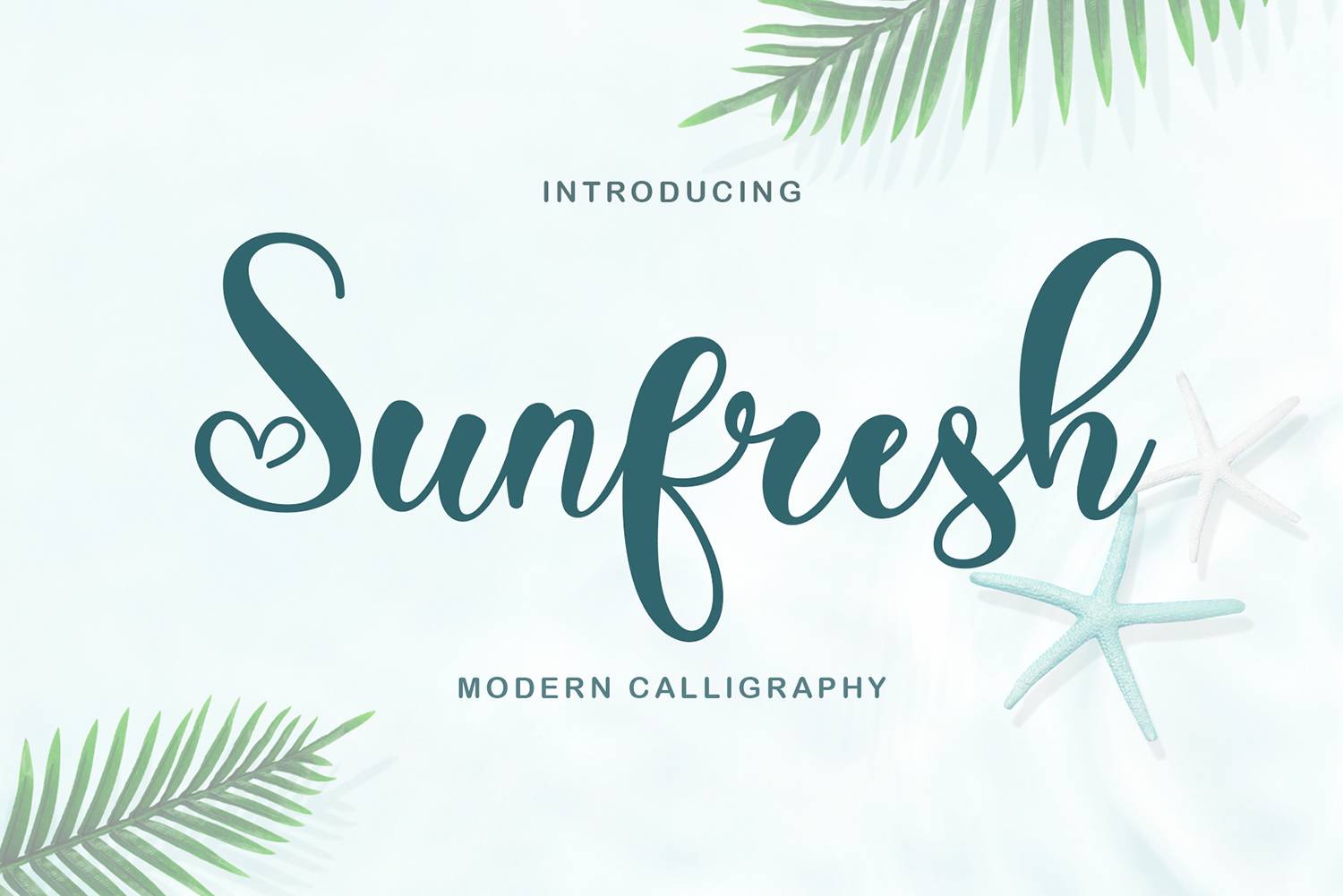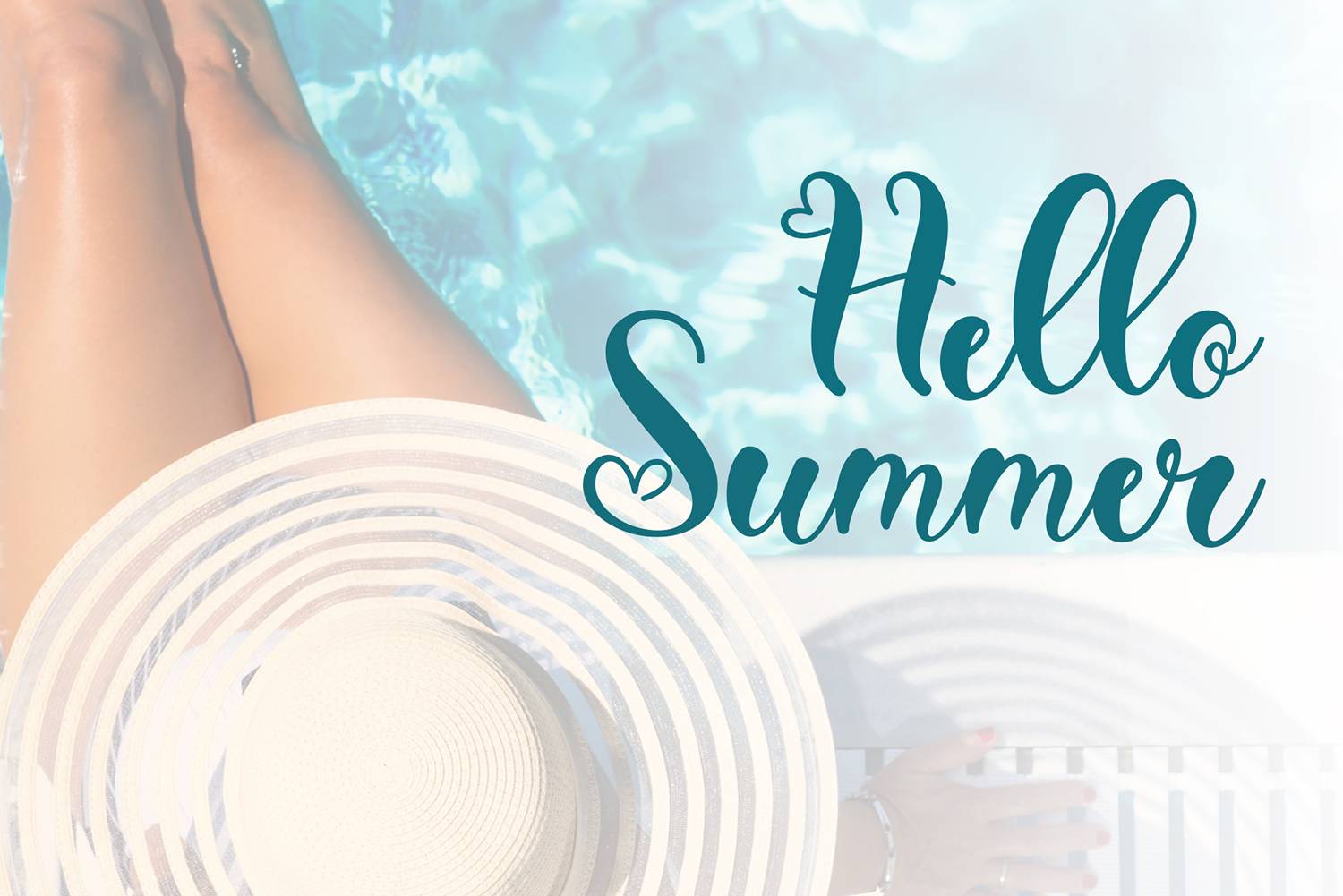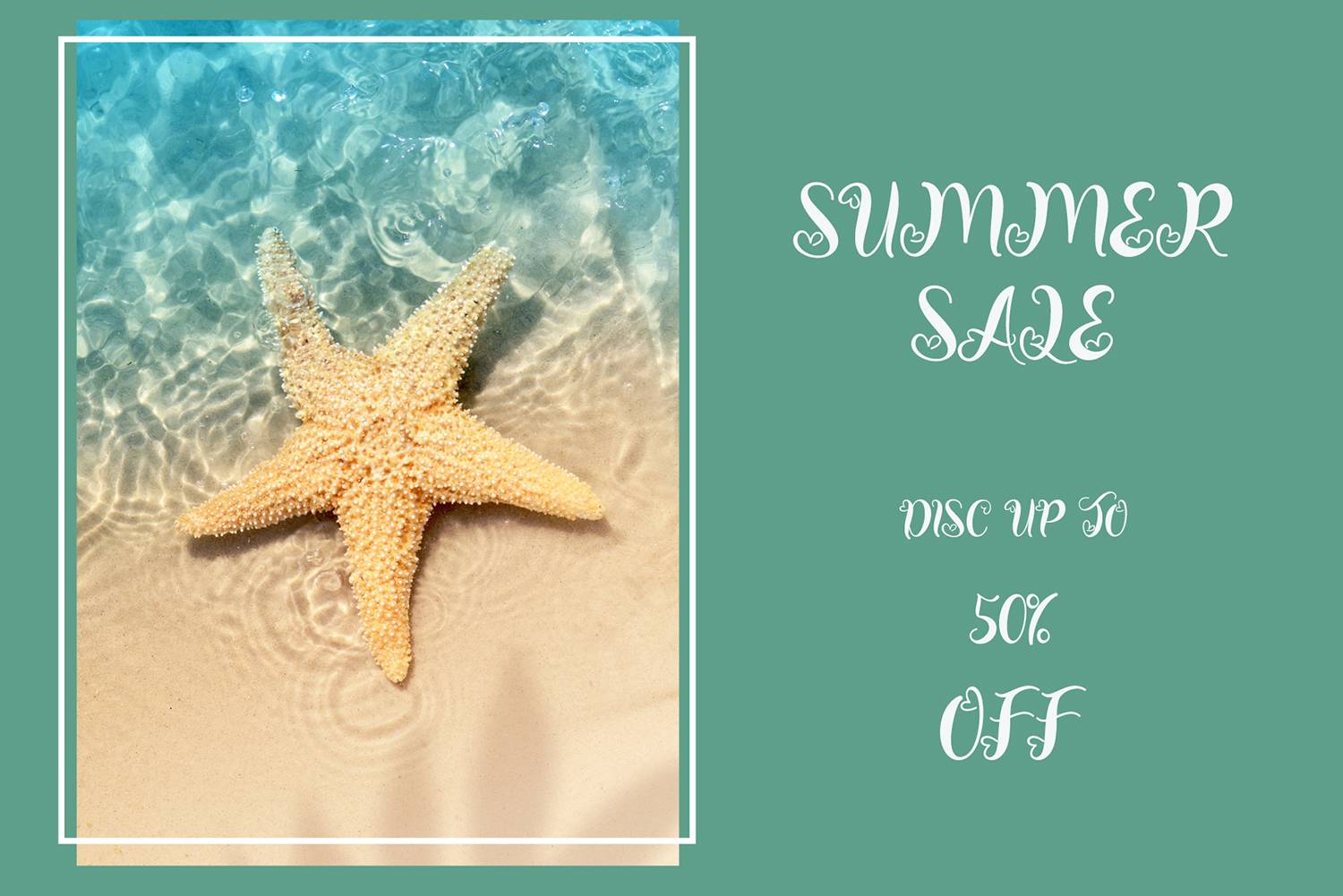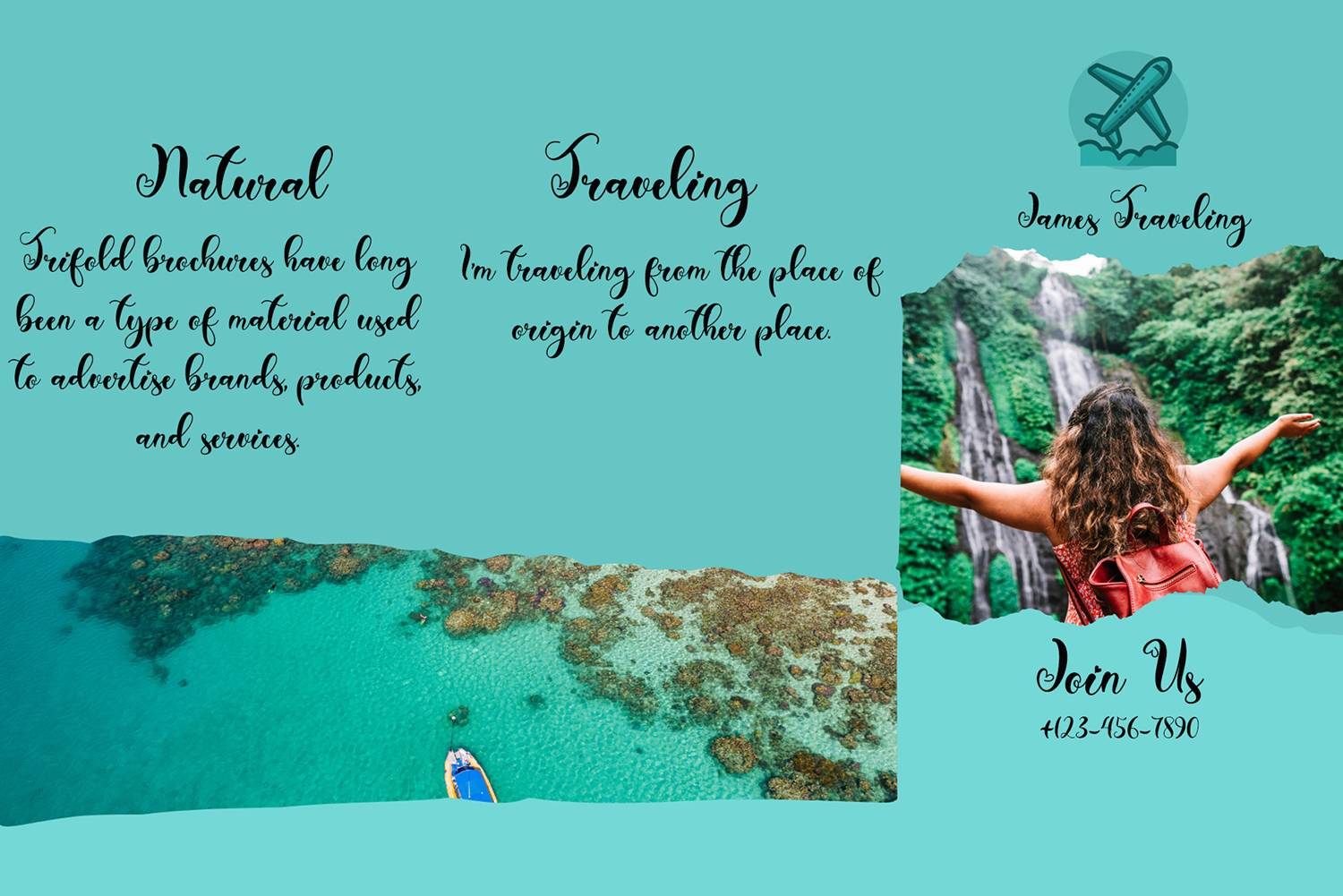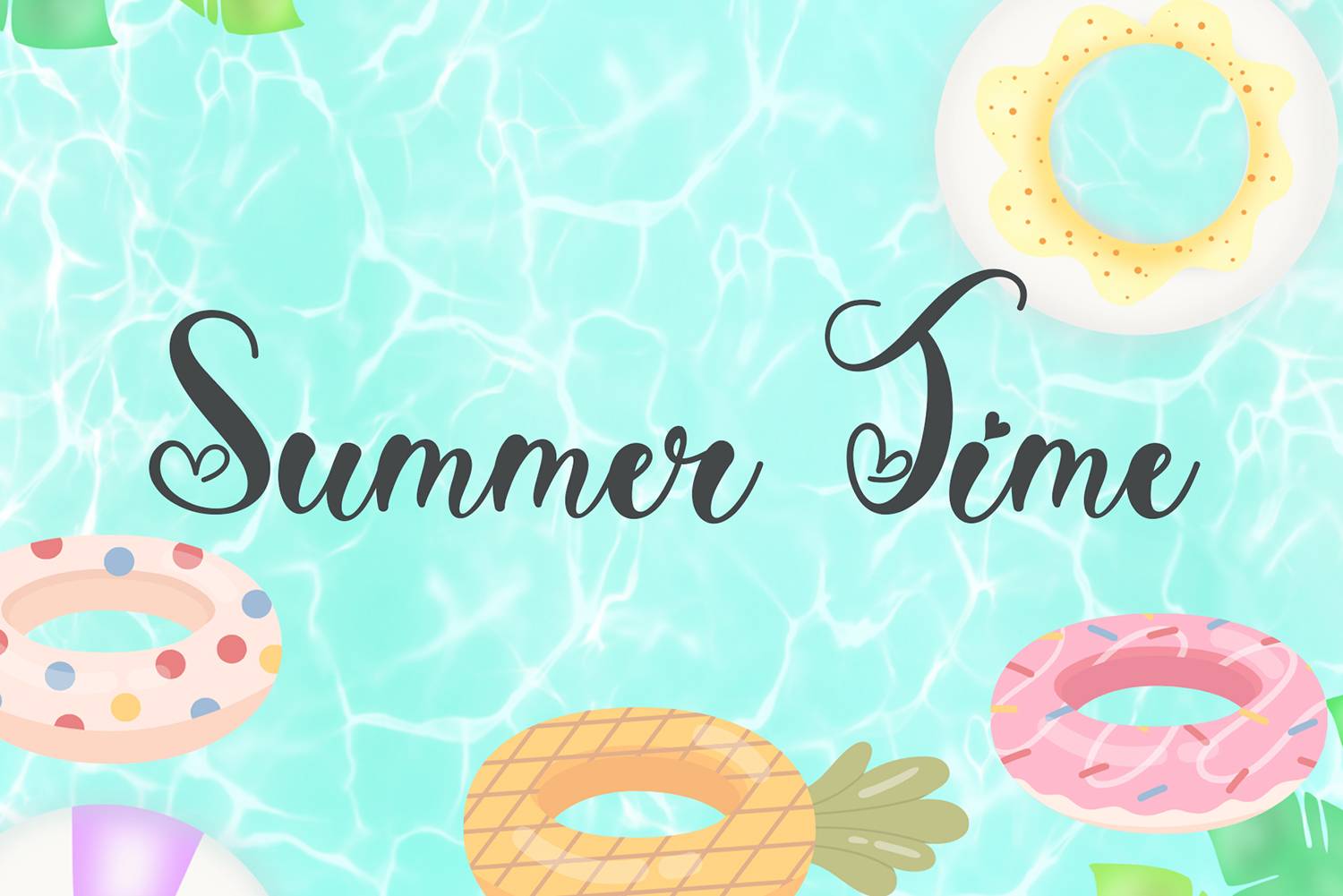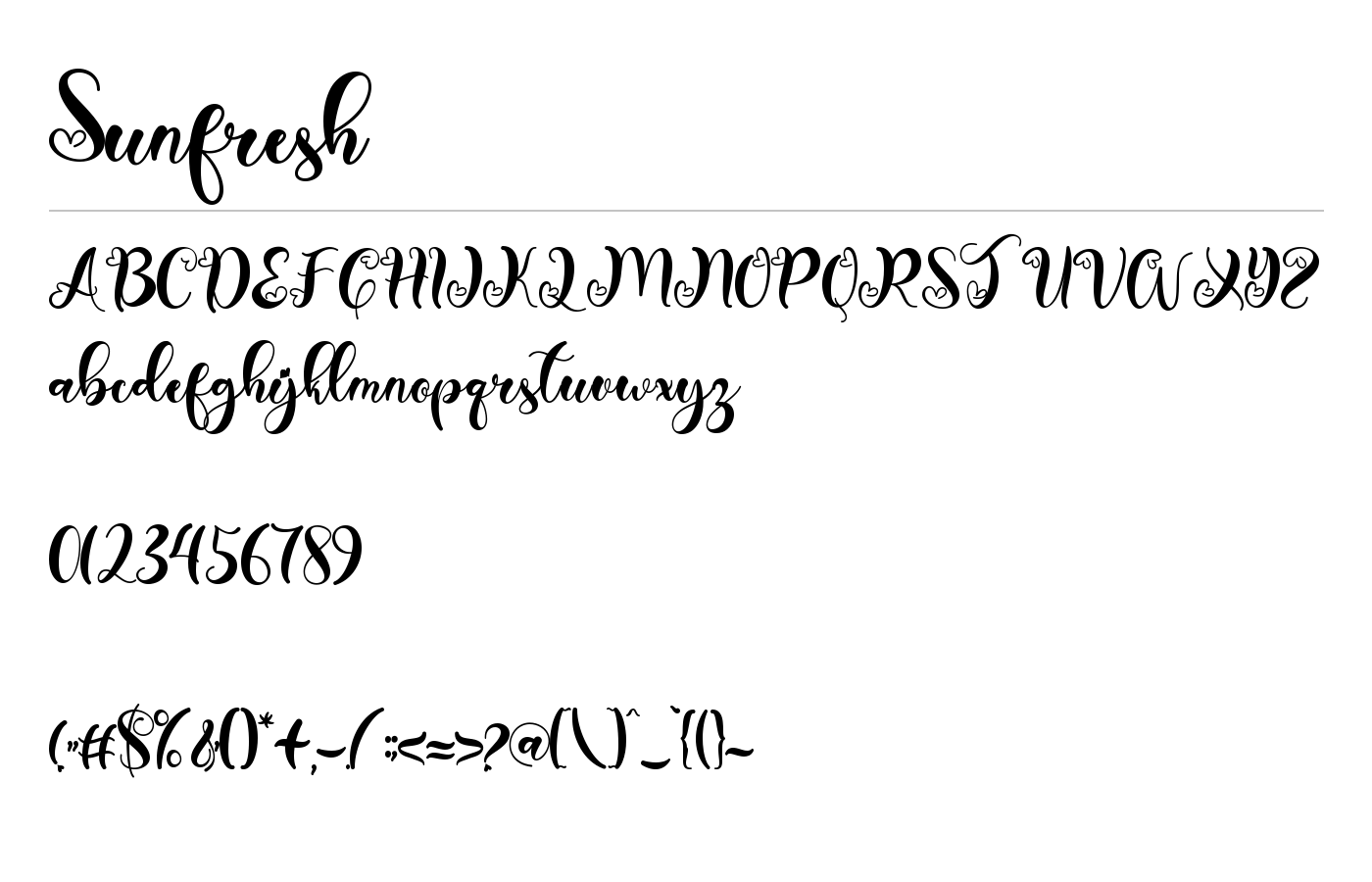
Sunfresh is a charming script font featuring elegant, flowing strokes with playful heart-shaped swirls on many uppercase letters, giving it a warm and romantic feel. Its medium weight and smooth curves make it perfect for creative, feminine designs such as wedding invitations, greeting cards, and stylish branding that seeks a personal, handcrafted touch. This font works best in headlines or decorative text where its unique, joyful personality can truly shine.
| Font family | Sunfresh Font |
| Designer | Selvia Design 2022 (Selvia Cahya Kusuma Devi) |